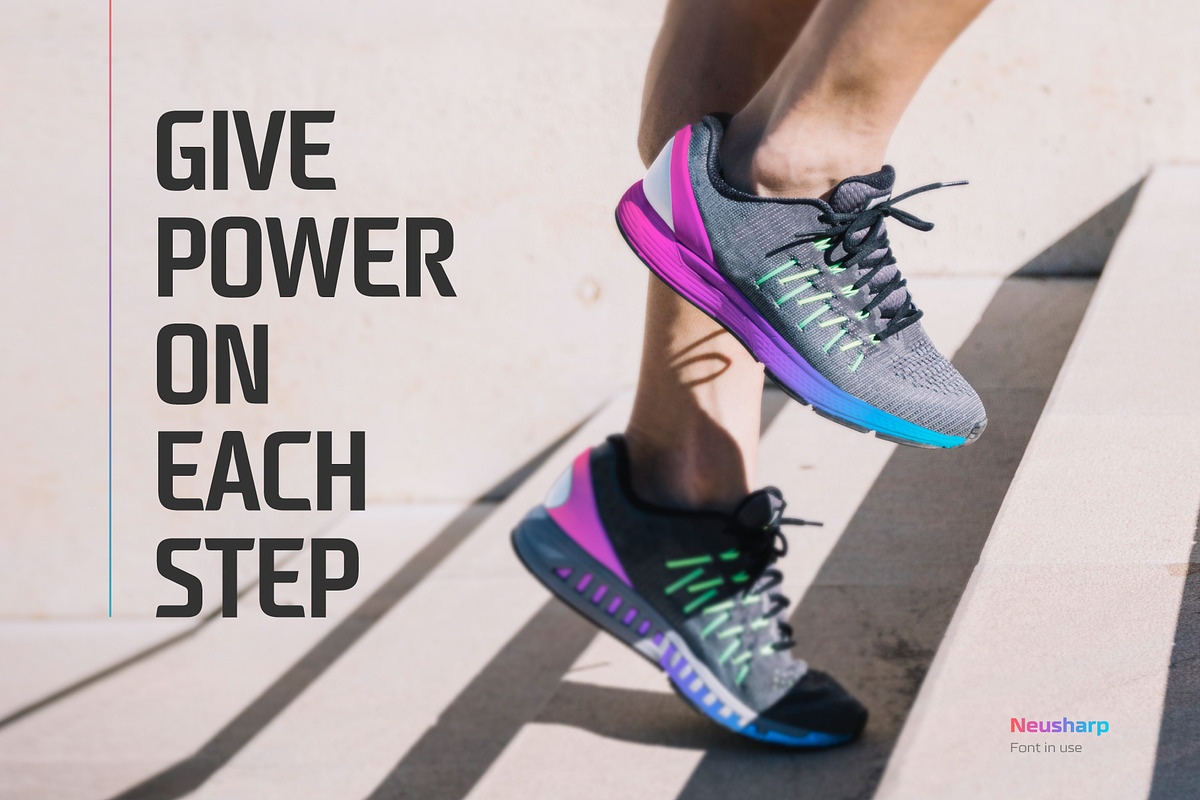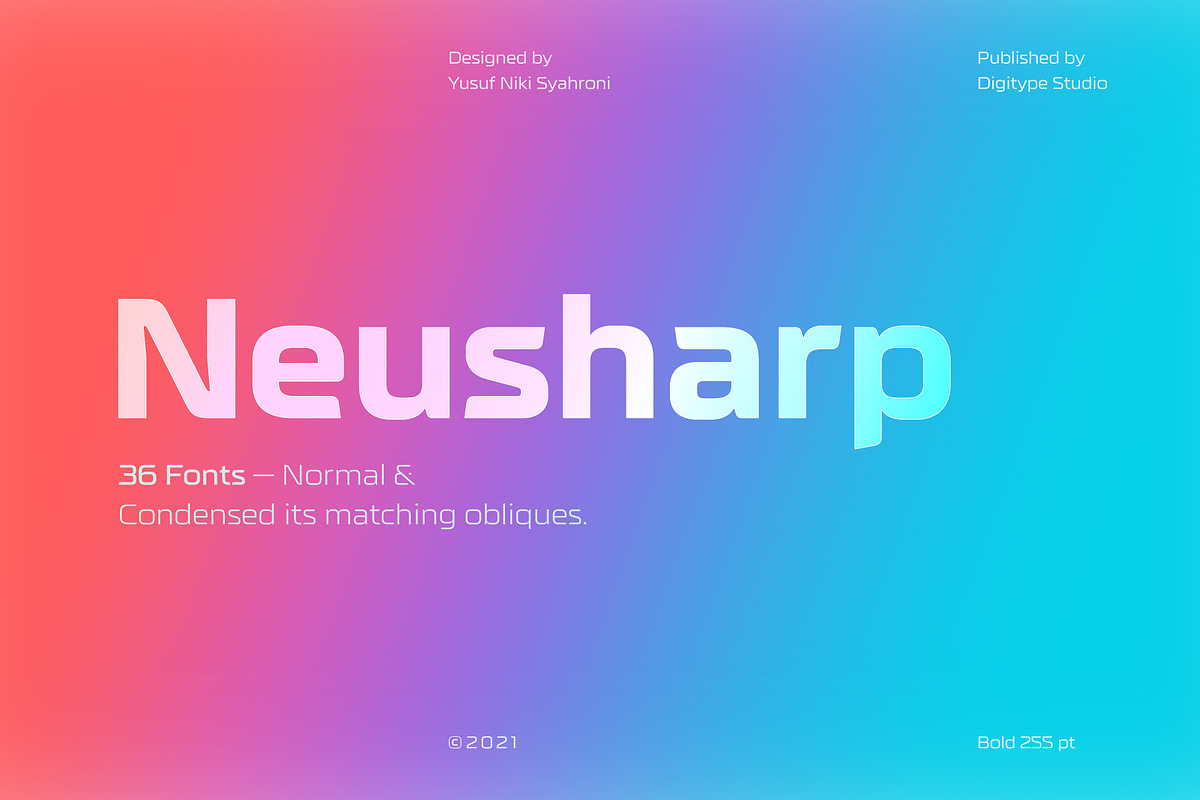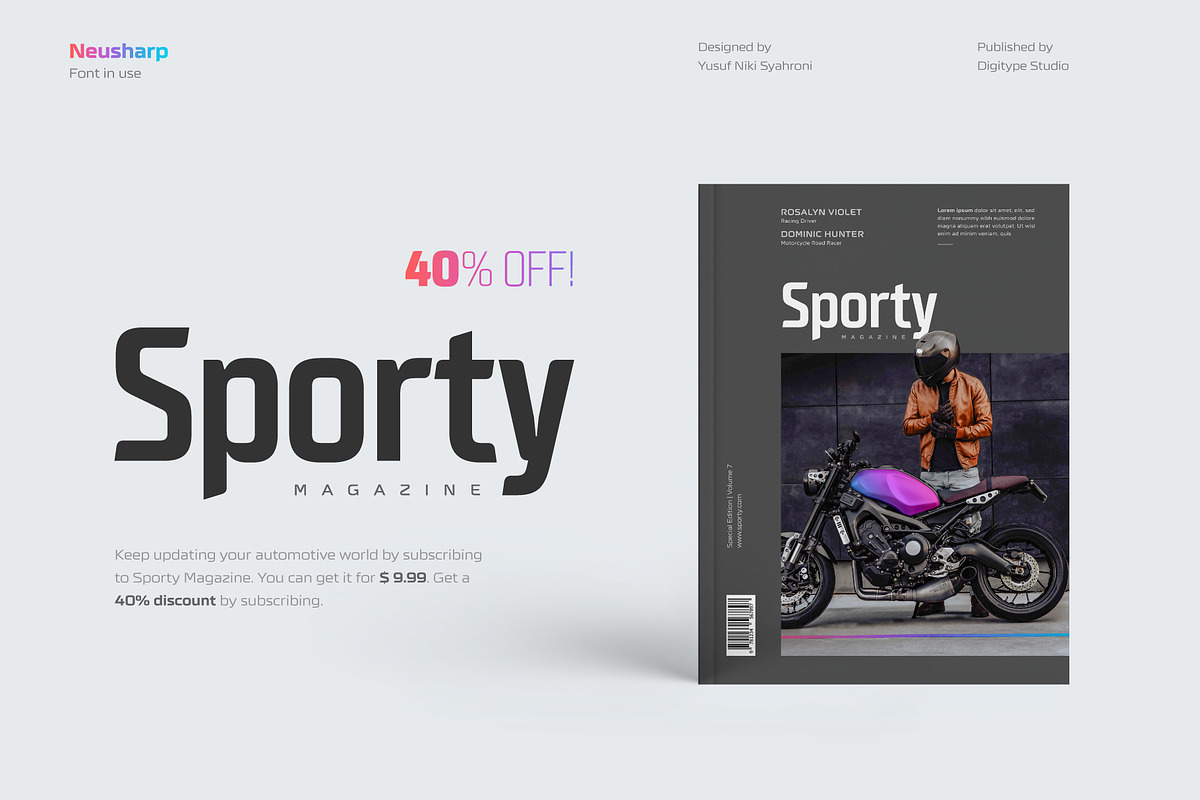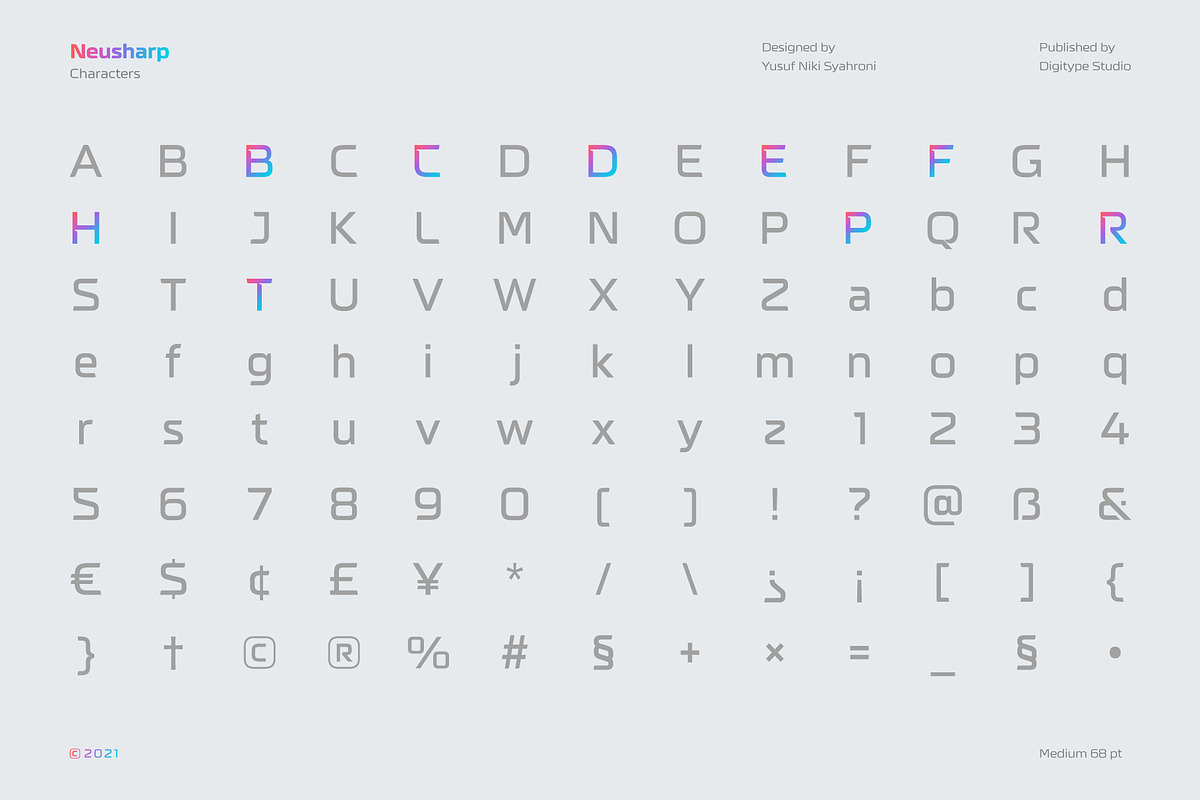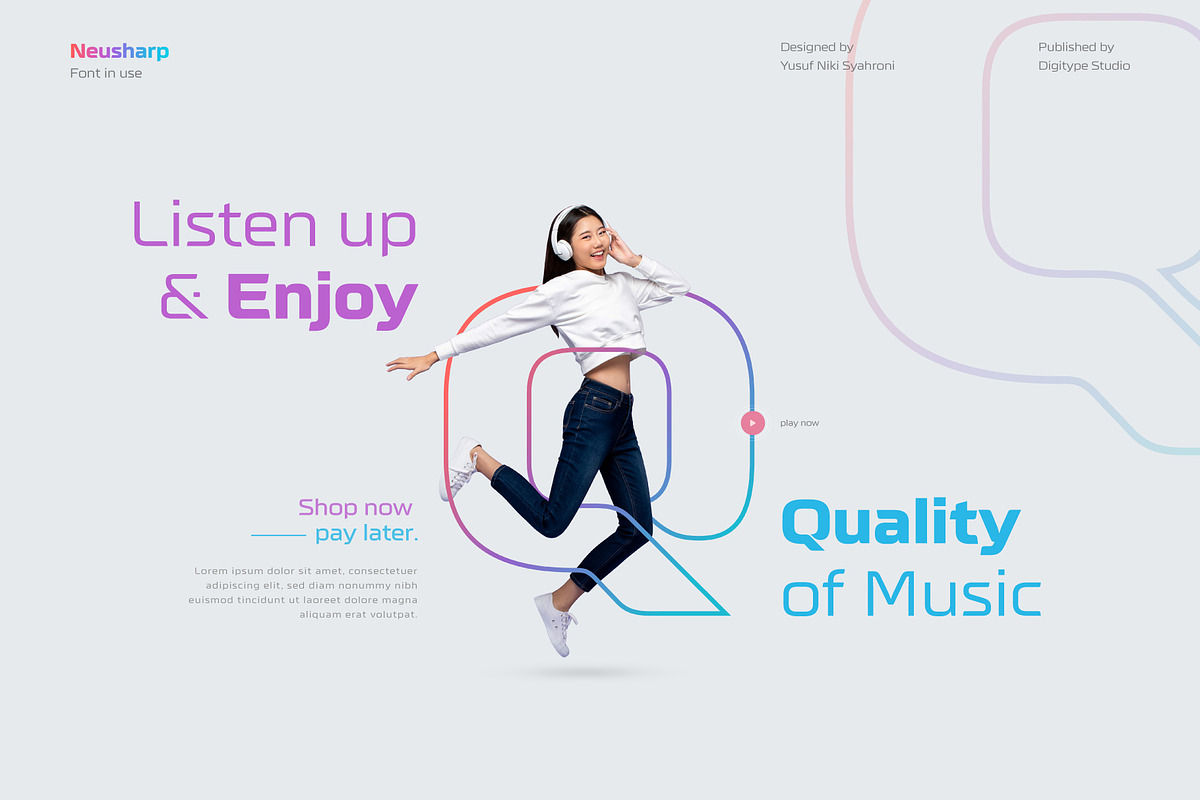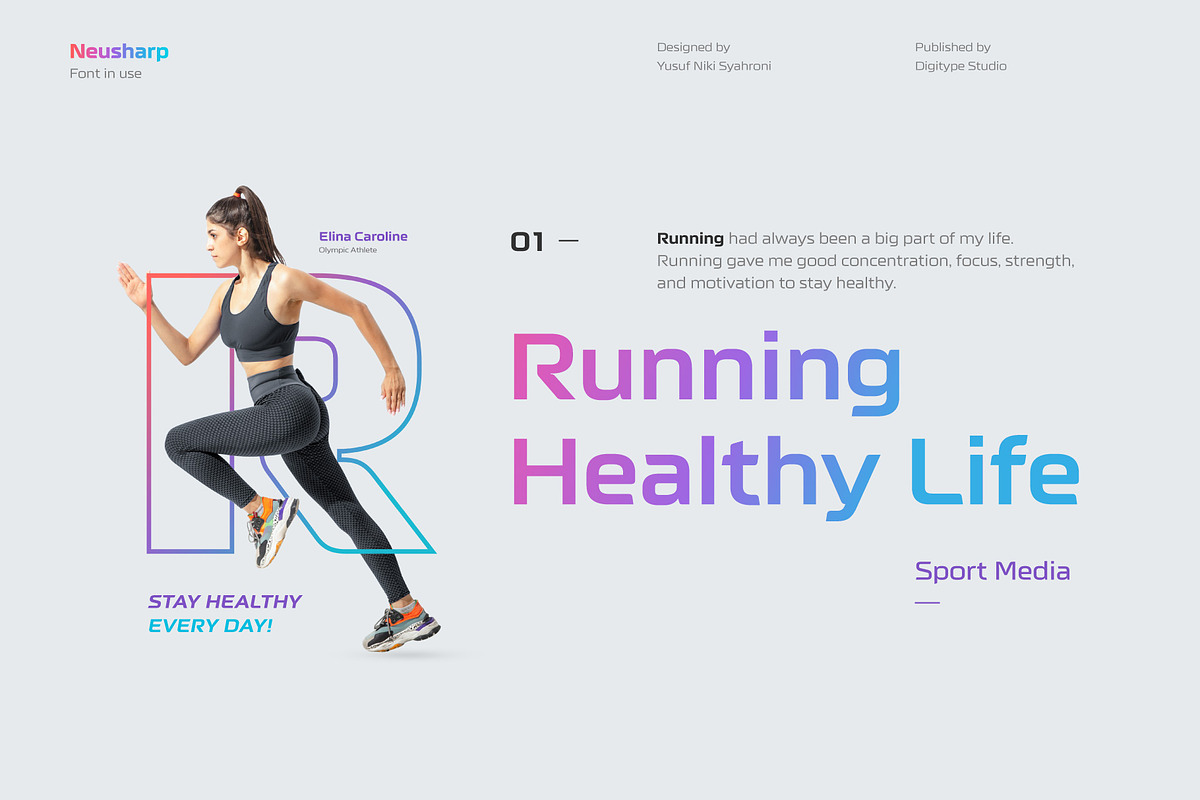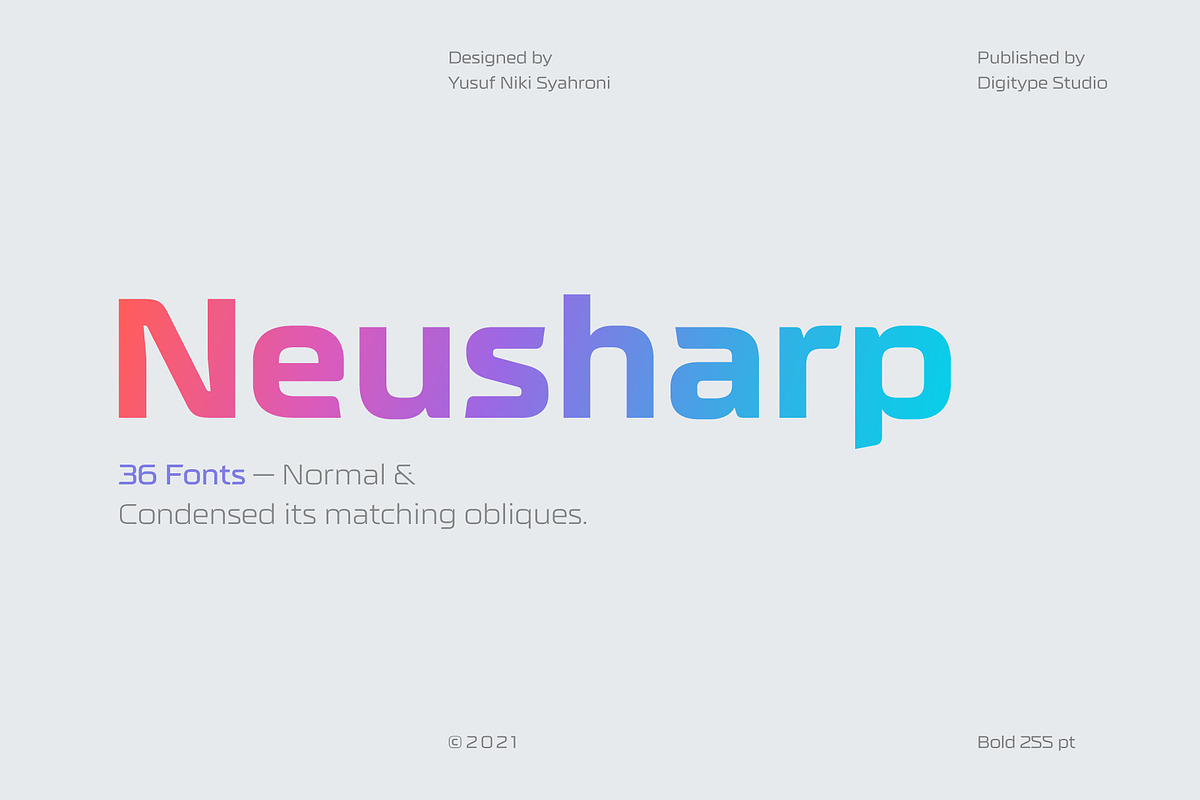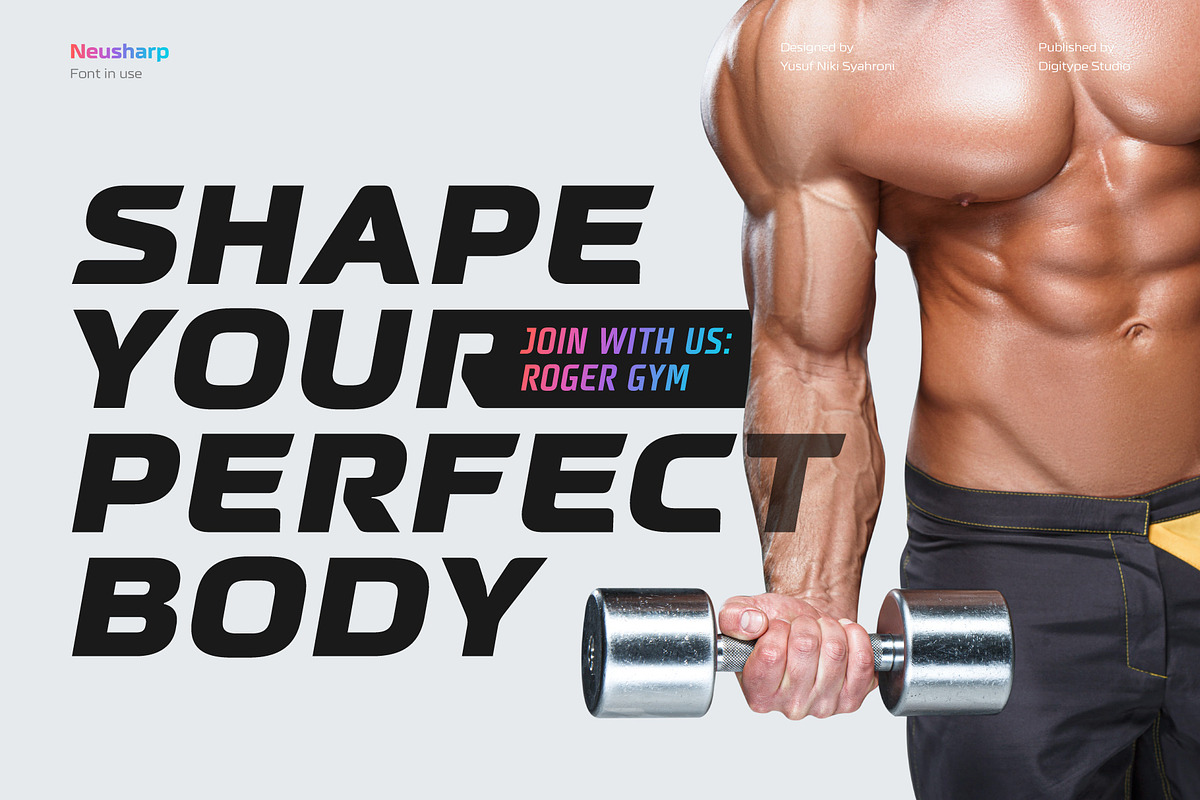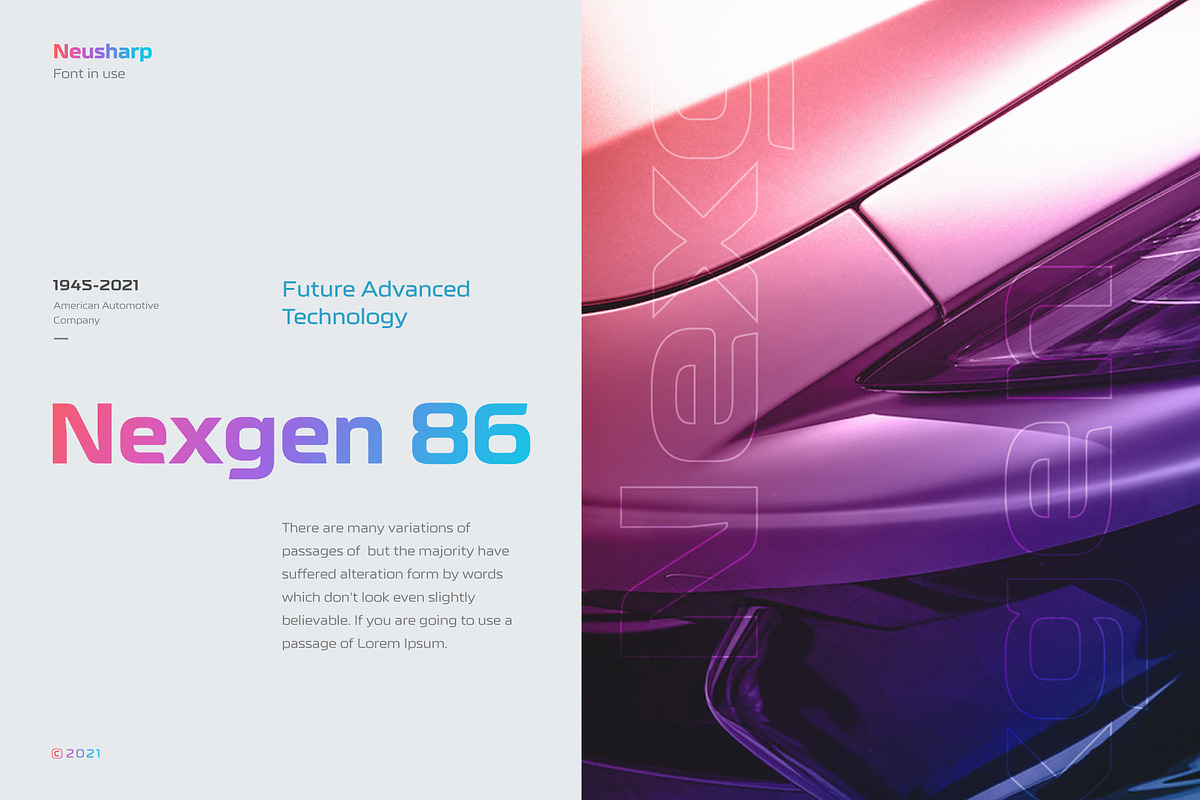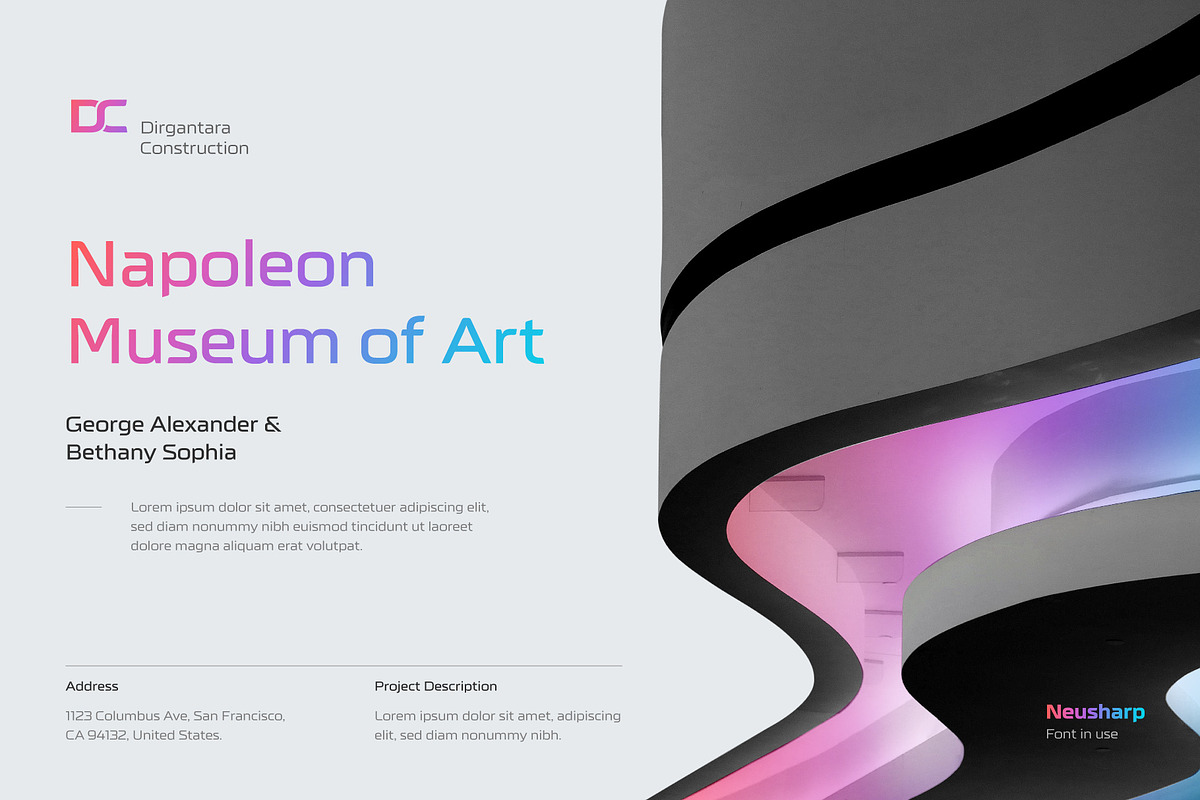
Neusharp Complete Family
Neusharp fonts are great for headlines and short paragraphs. It is suitable for making text quotes, documents, websites, logotypes, sports-themed designs, magazines, other creative business designs, etc.
Neusharp is a sans serif typeface with a sharp shape that is very impressive to have. This font family includes 36 fonts in various weights and styles, so there are plenty of options to make your product even more creative and engaging.